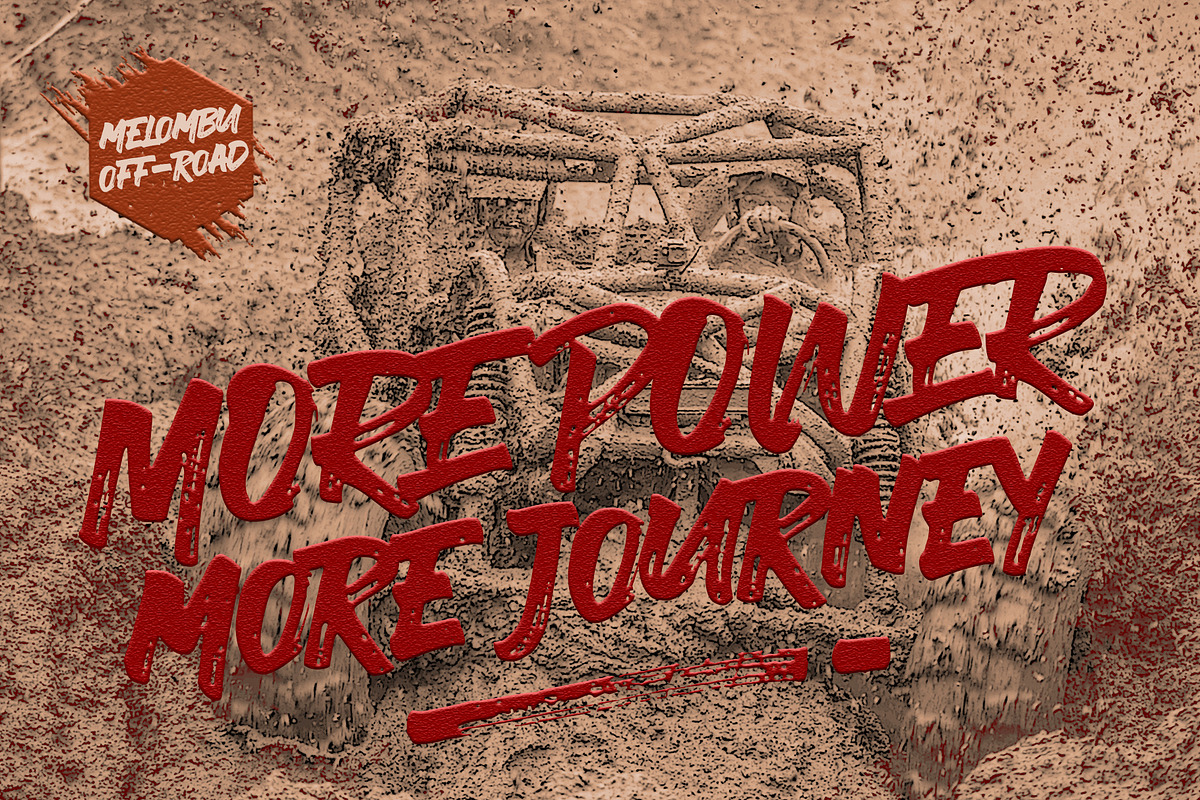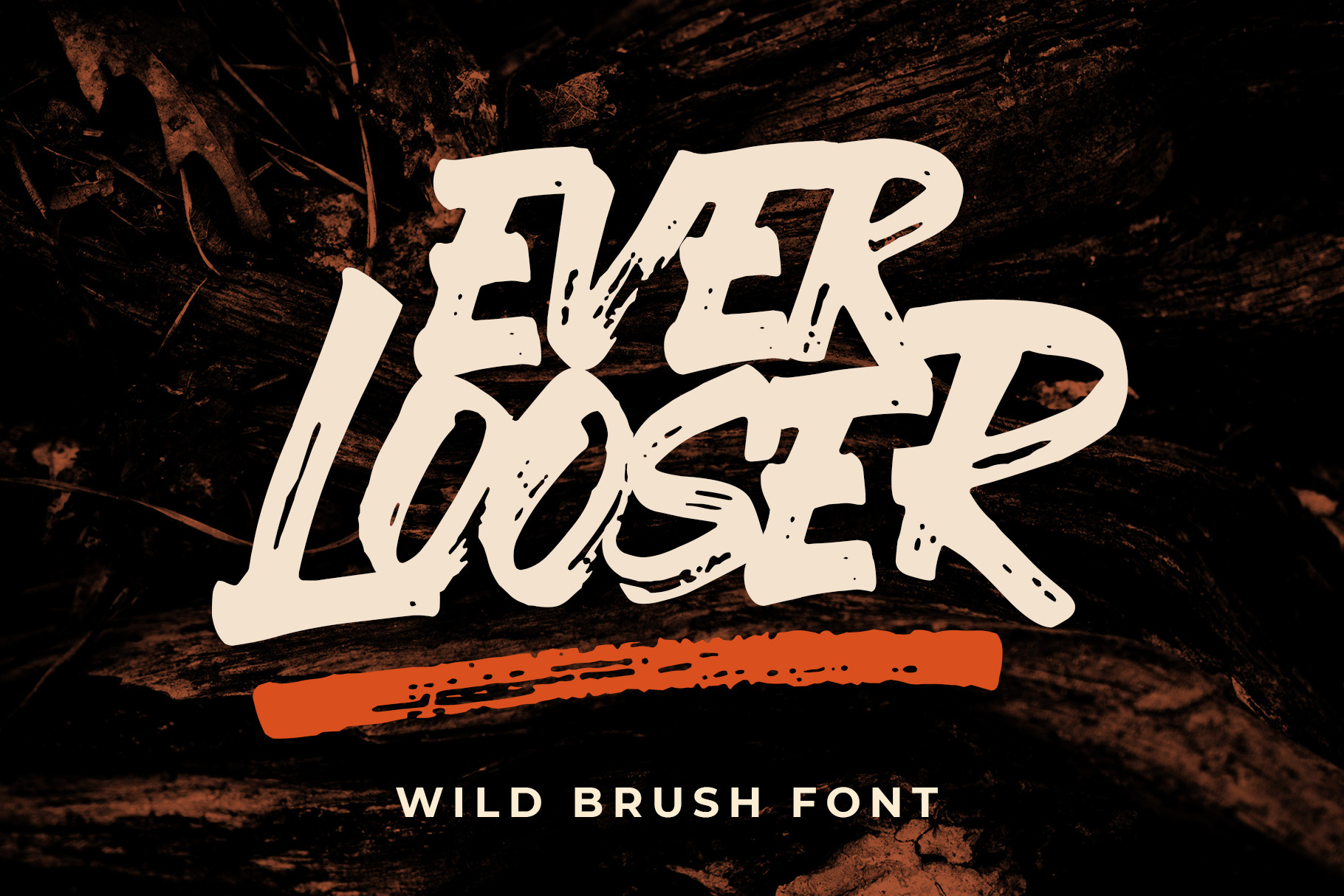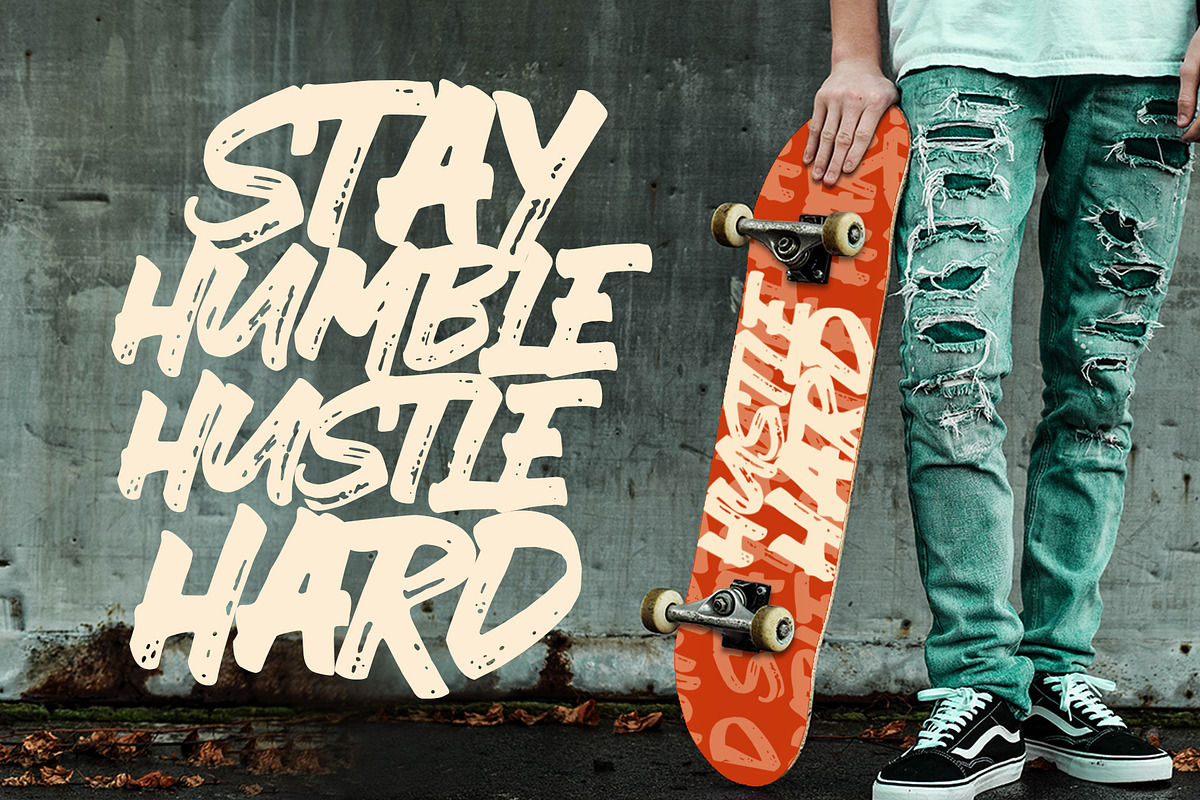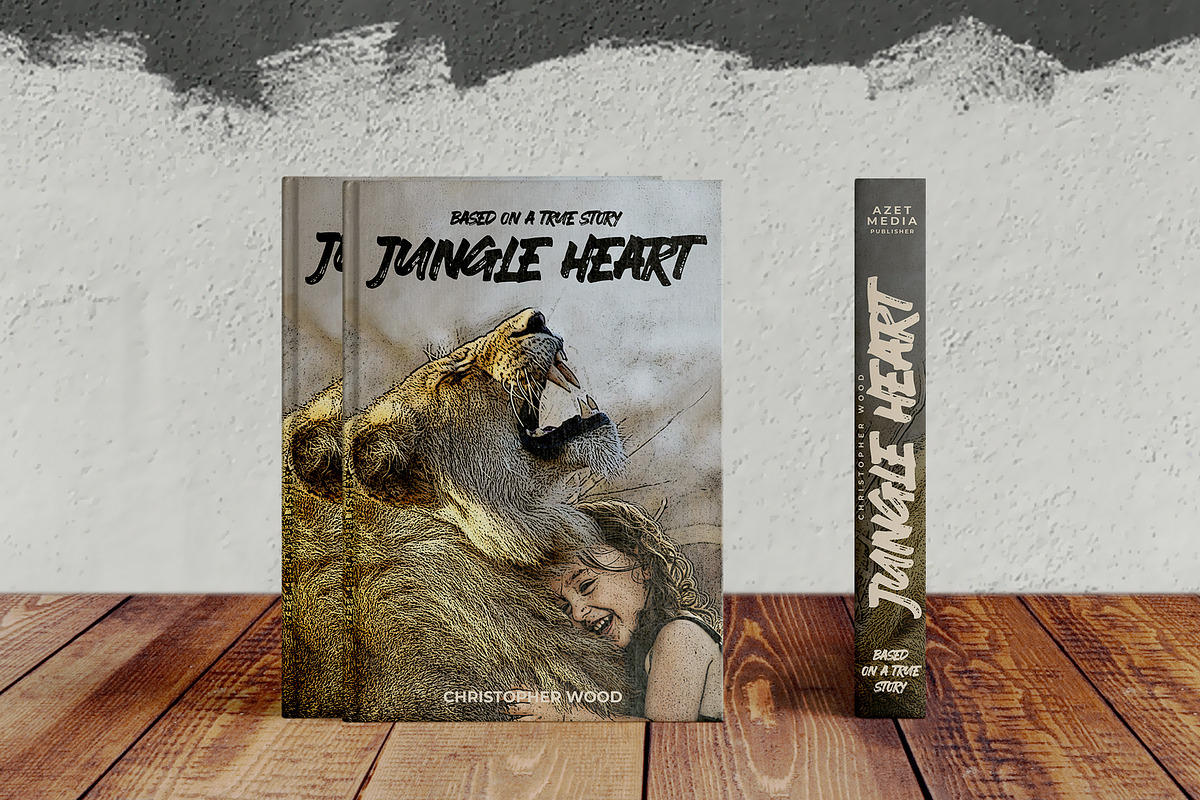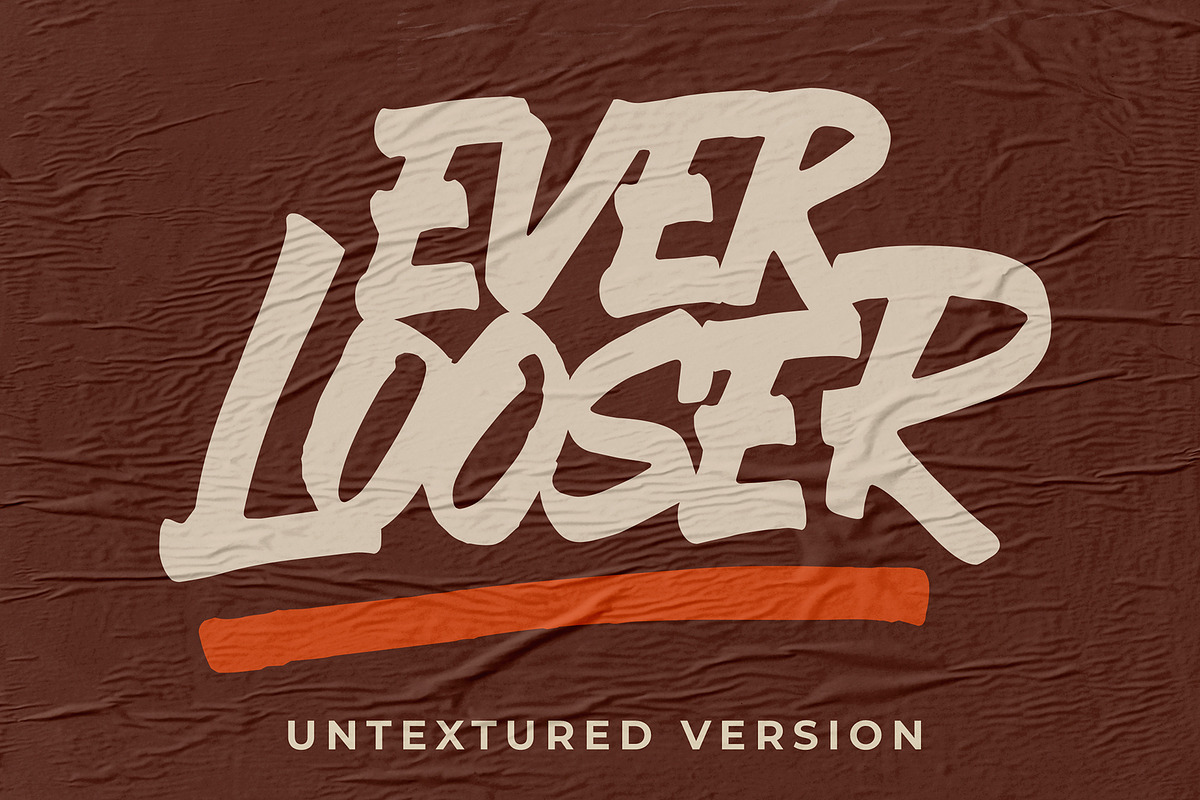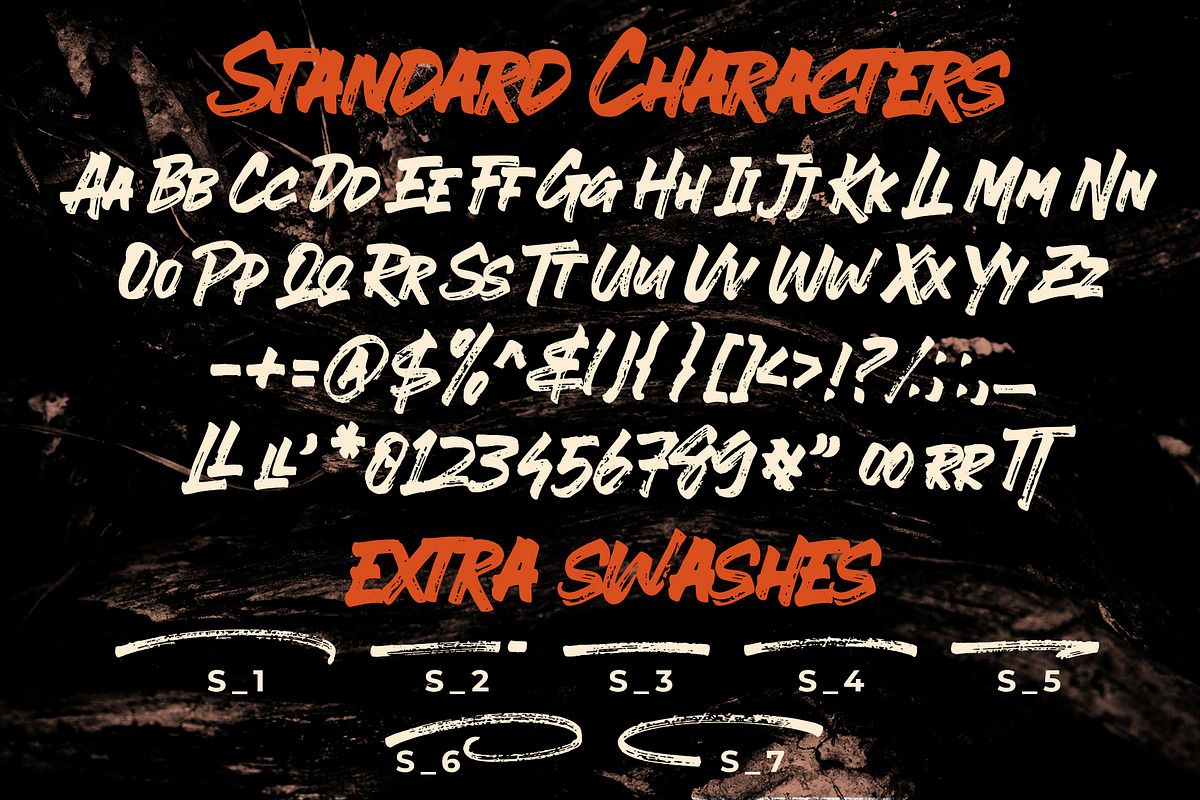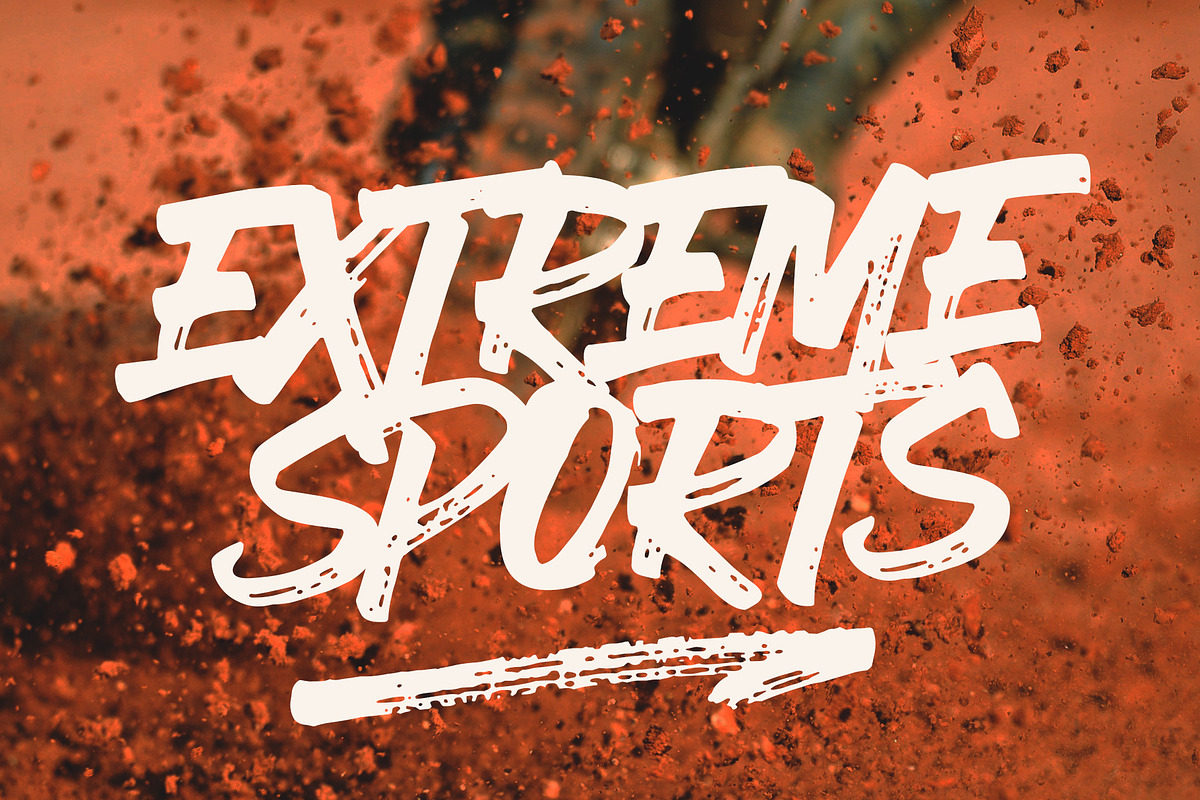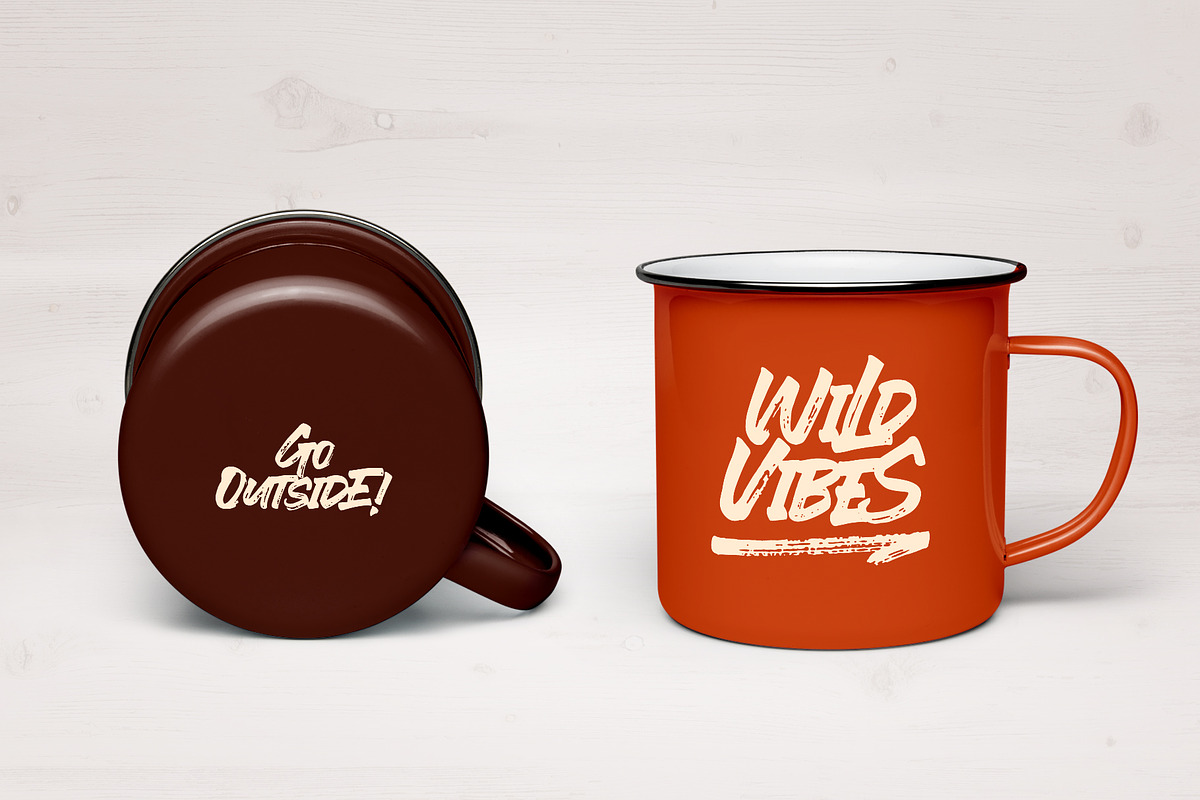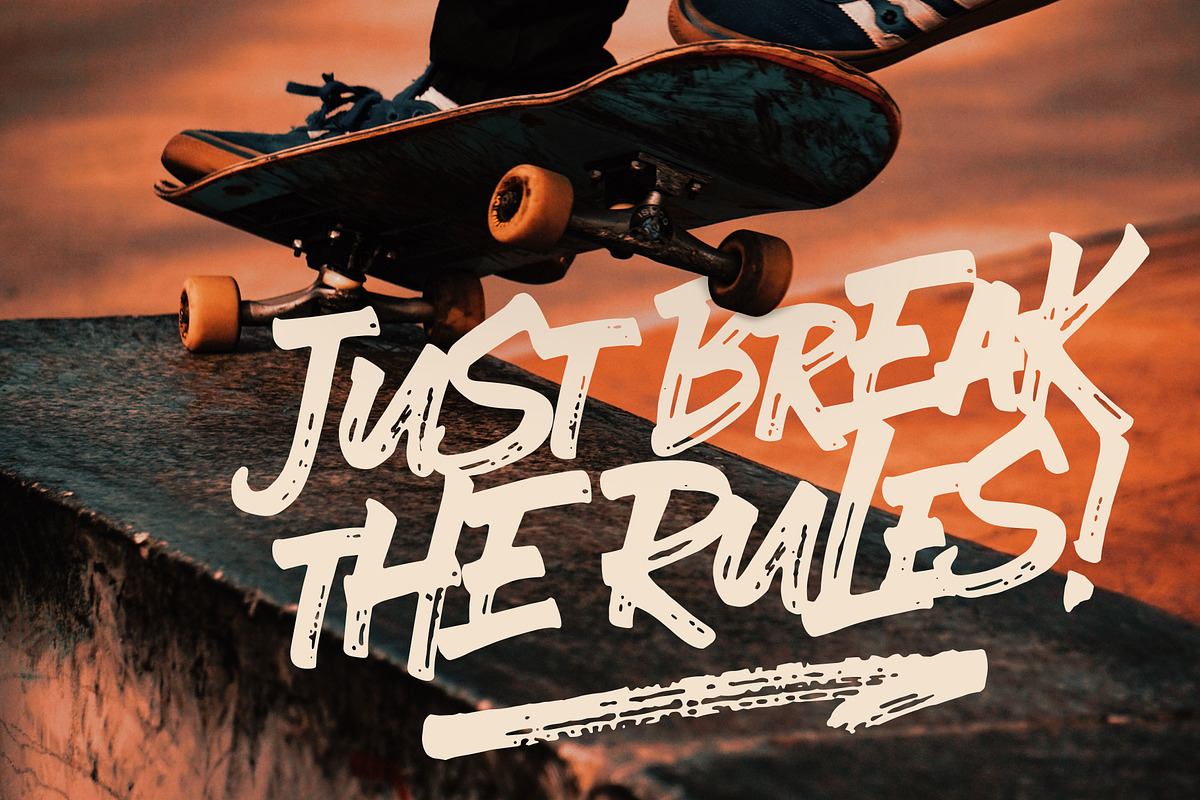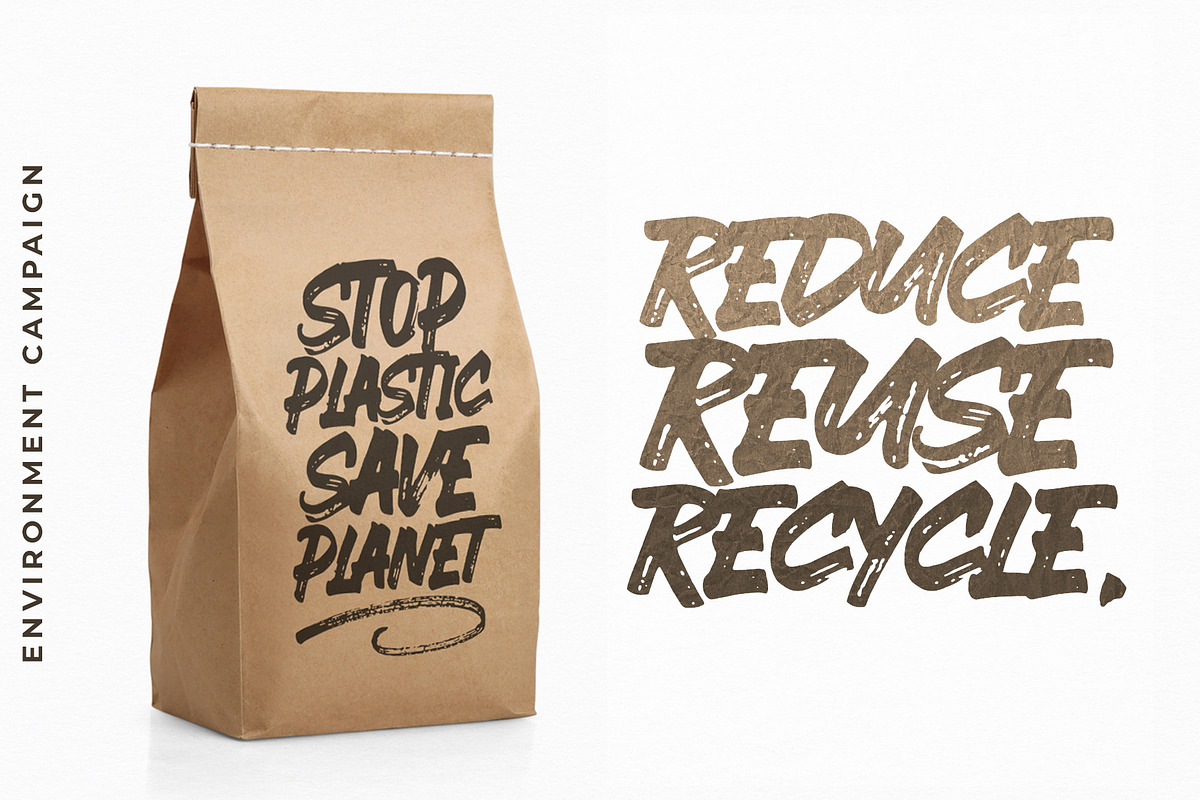
Ever Looser - Wild Brush Font
Presenting EVER LOOSER! A Wild Brush Font with the distinct texture. This font made with perfect combining of each characters. You can type by Mix & Match to get a unique combining. It looks original and can be used for all your project needs. Each glyph has its own uniqueness and when meeting with others will provide dynamic and pleasing proximity. This font can be used at any time and any project. You can see in the presentation picture above, EVER LOOSER looks 'wild' on design projects.
So, EVER LOOSER can't wait to give its touch to all your design projects such as environment campaigns, quotes, poster design, cover book design, promotional materials, t-shirt, hoodie, product packaging, simply as a text overlay to any background image, etc.
Besides that, EVER LOOSER also has some ligature that gives a surprise when you type the certain characters combining. The ligatures are TT, LL, ll, oo, and rr.
1. EVER LOOSER • It comes with uppercase, lowercase (small caps), ligatures, numeral, punctuation, symbols, and multilingual support (Afrikaans, Albanian, Catalan, Danish, Dutch, Estonian, English, Finnish, German, Icelandic, Indonesian, Italian, Malay, Norwegian, Portuguese, Spanish, Swedish, Zulu, and Many More).
2. EVER LOOSER UNTEXTURED • It's a clean version--comes with uppercase, lowercase (small caps), ligatures, numeral, punctuation, symbols, and multilingual support (Afrikaans, Albanian, Catalan, Danish, Dutch, Estonian, English, Finnish, German, Icelandic, Indonesian, Italian, Malay, Norwegian, Portuguese, Spanish, Swedish, Zulu, and Many More).
3. EXTRA SWASHES • It comes with 7 'wild' swashes that make your design looks natural. Just type S_1 S_2 S_3 S_4 S_5 S_6 S_7 to feature it.